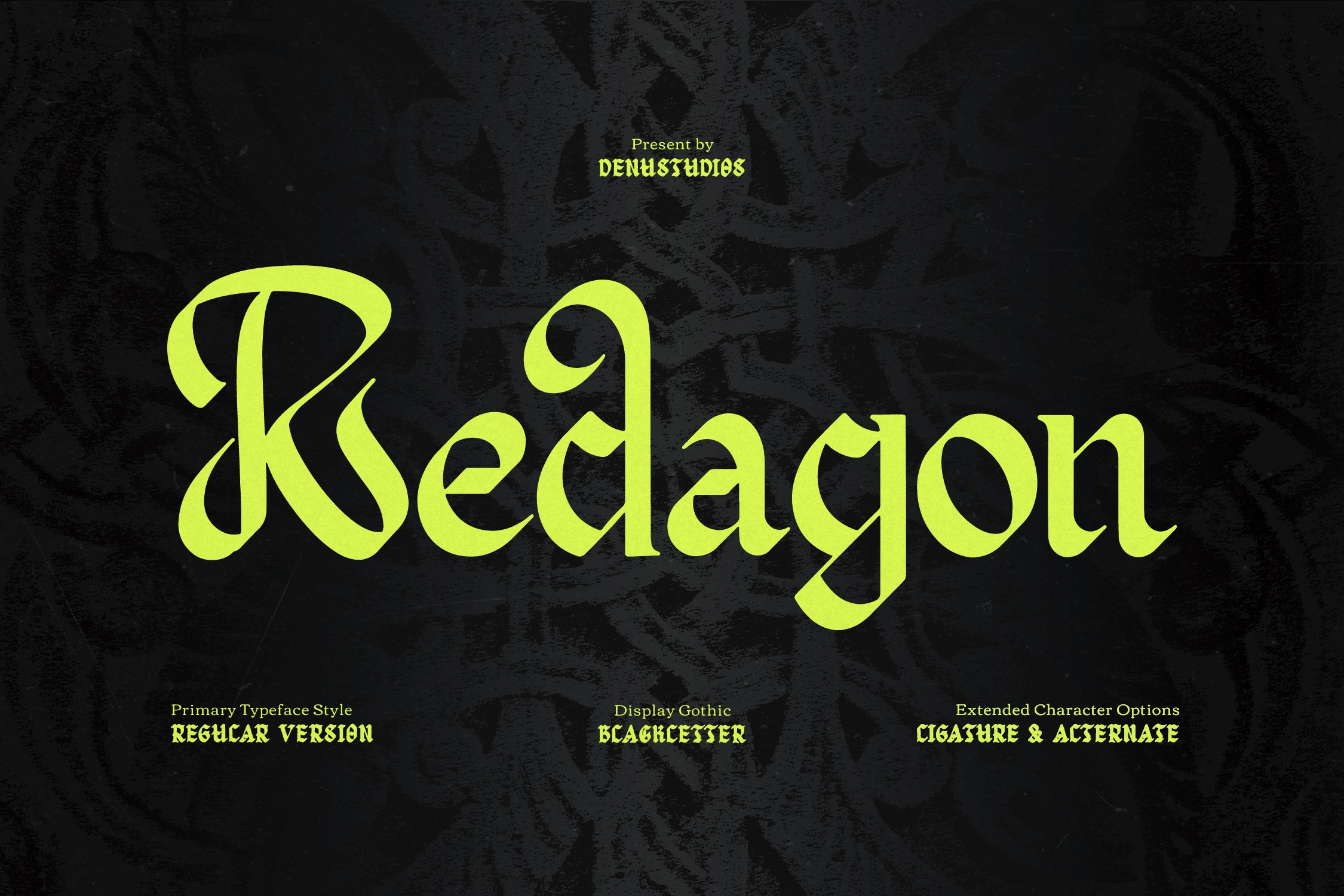
Redagon Font
Redagon Font is a premium-quality font developed to enhance your work with a polished, modern, and visually elevated look. Redagon | Blackletter Typeface, from Denustudios, suitable for any projects such as: logos, branding projects, homeware designs, product packaging, mugs, quotes, posters, shopping bags, t-shirts, book covers, name card, invitation cards, greeting cards, label, photography, watermark, special events, and all your other lovely projects that need a Blackletter taste.